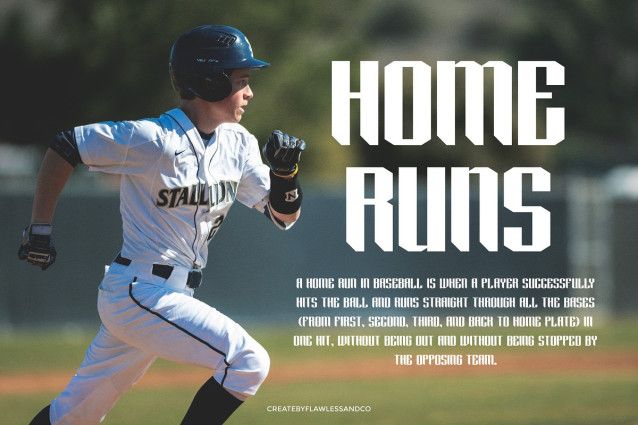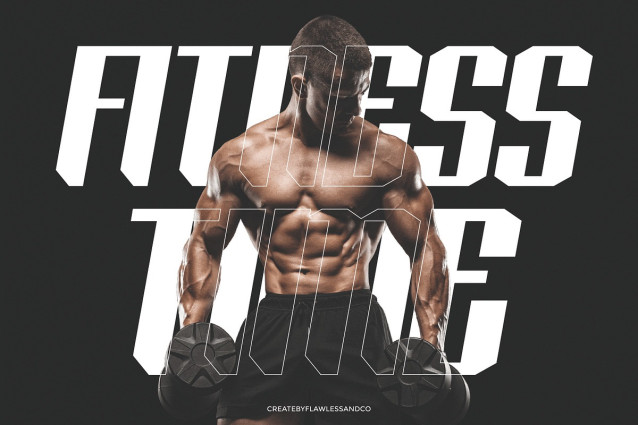
Gelathic Font
Gelathic Font a modern sport font built to dominate. Bold, strong, and sharp-edged, this font channels power and precision in every letter. With striking angular forms and aggressive attitude, Gelathic is made for gym branding, energy drink labels, activewear logos, and fitness campaigns that push limits. Gelathic brings a fresh take on athletic typography – complete with ligatures, clean alignment, and unstoppable visual energy. Whether you’re designing for strength, speed, or motivation, this font delivers impact at every turn.